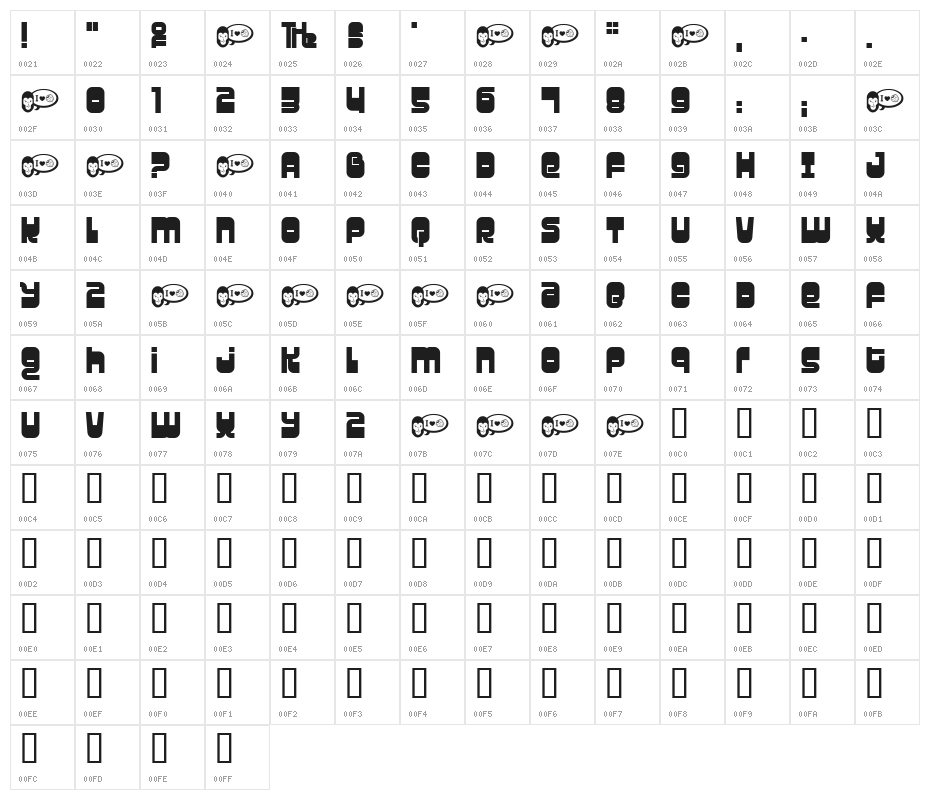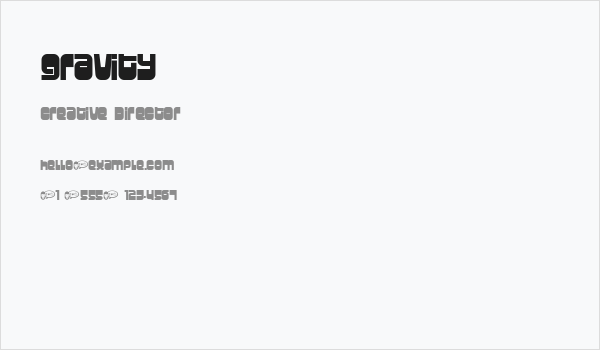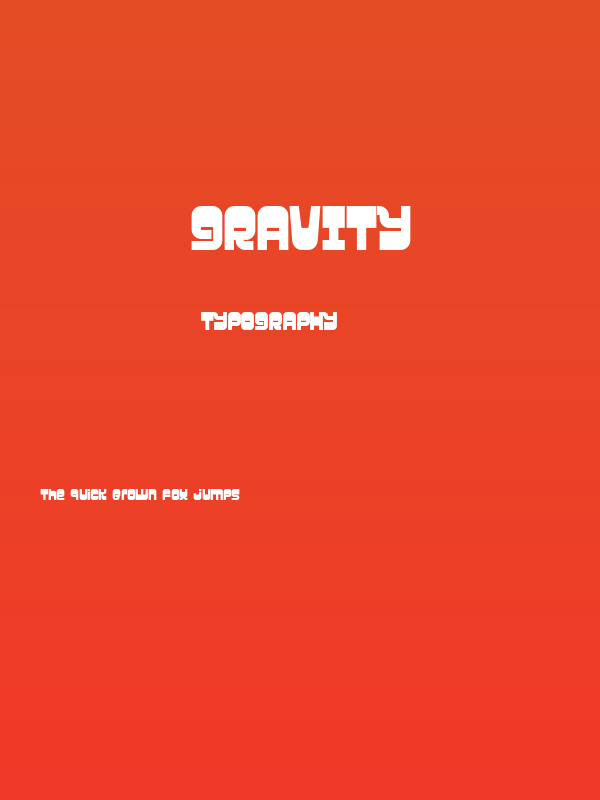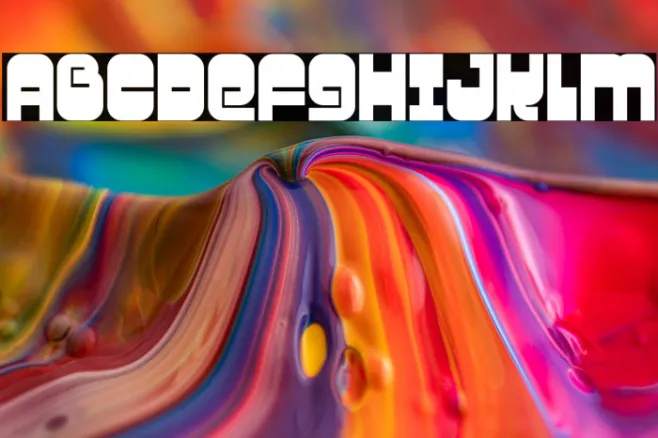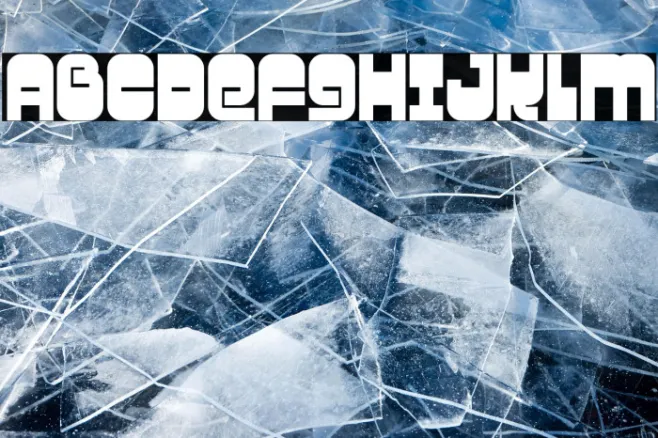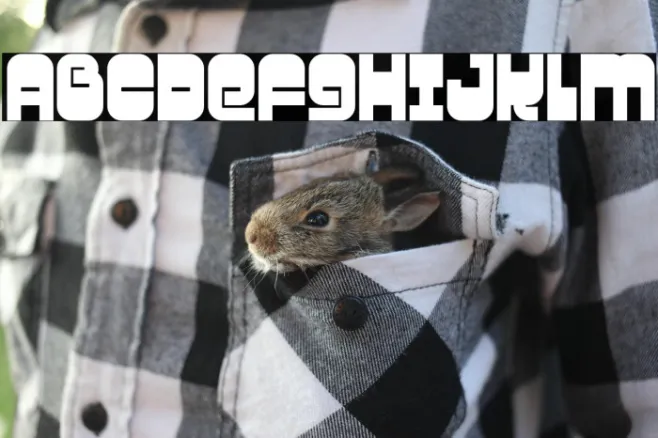
Gravity Font
Gravity Description
This font features a bold, geometric design with a strong emphasis on rounded edges and thick strokes. The characters are uniformly wide, creating a cohesive and impactful appearance. The uppercase and lowercase letters maintain a consistent style, with a modern and futuristic flair. The numbers and special characters are designed to match the boldness and geometric nature of the alphabet, ensuring a seamless integration across all text elements. This font's unique style makes it stand out, offering a distinctive look that is both eye-catching and memorable.